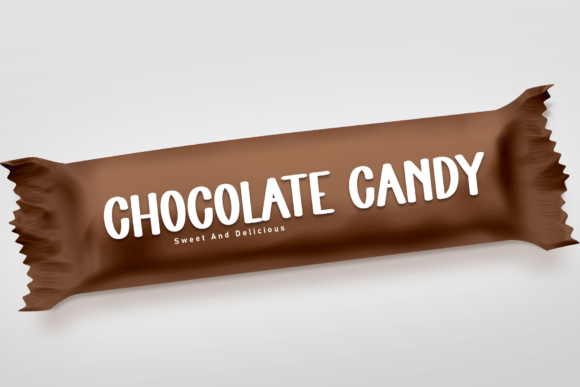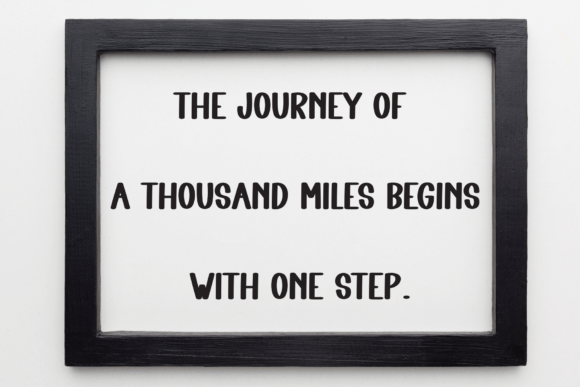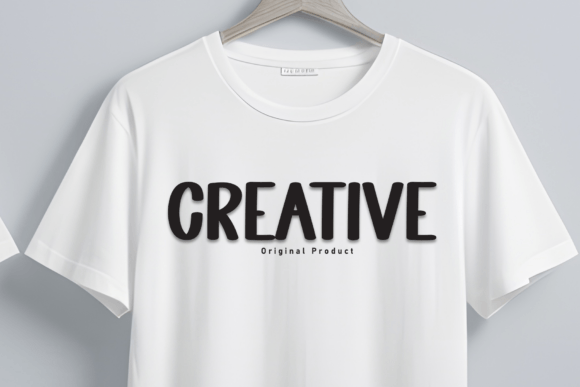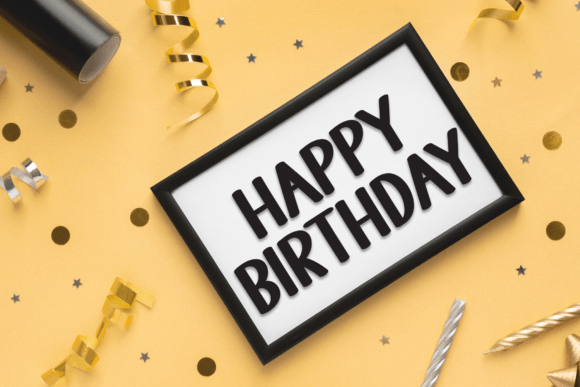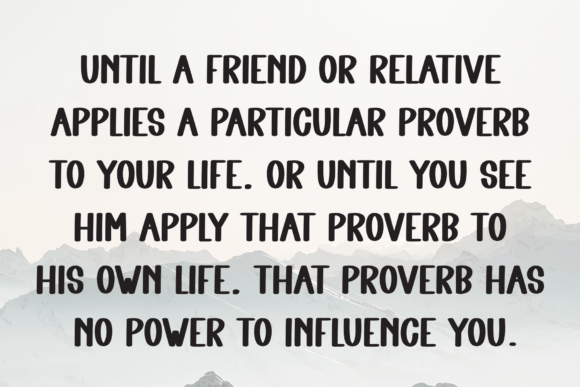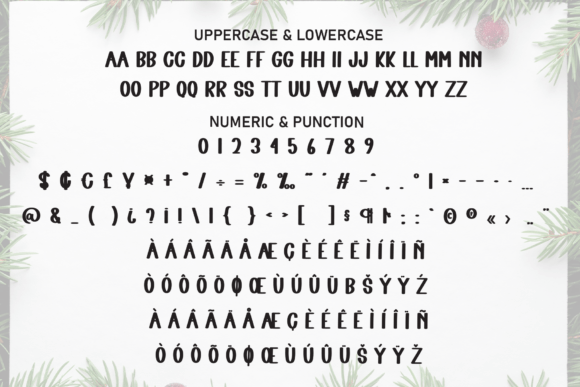
The Alphabet Font: A Bold and Beautiful Choice for Designers
I still remember the time I was working on a project for a client who needed a bold, eye-catching font for their logo. I had spent hours browsing through font libraries, but nothing seemed quite right. That was when I stumbled upon the Alphabet Font, and it instantly caught my attention. Its thick, strong letters stood out in a way that was both clear and simple, making it perfect for grabbing attention in posters, headlines, or logos.
• ✨ The bold and sturdy design makes it perfect for headlines and titles.
• ✅ The simple and clear design ensures that the font remains legible even at larger sizes.
• 💡 The font’s versatility allows it to be used in a wide range of design projects, from posters and flyers to logos and branding.
While the Alphabet Font is an excellent choice for many design projects, there are a few things to keep in mind. 🤔 For example, the font’s bold design may not be suitable for body text or smaller sizes, where a more delicate font might be more readable. ⚠️ Additionally, some users have reported issues with kerning, which can affect the overall appearance of the text.
The Alphabet Font was designed with the goal of creating a bold and eye-catching font that could be used in a wide range of design projects. The designer, who wishes to remain anonymous, was inspired by the clean and simple lines of classic sans-serif fonts, but wanted to create something that was more attention-grabbing and unique.
Q: What is the Alphabet Font?
A: The Alphabet Font is a bold display font with thick, strong letters that stand out. Its clear and simple design makes it great for catching attention in posters, headlines, or logos.
Q: Is the Alphabet Font suitable for body text?
A: While the Alphabet Font is an excellent choice for headlines and titles, it may not be the best choice for body text due to its bold design. A more delicate font may be more readable for longer blocks of text.